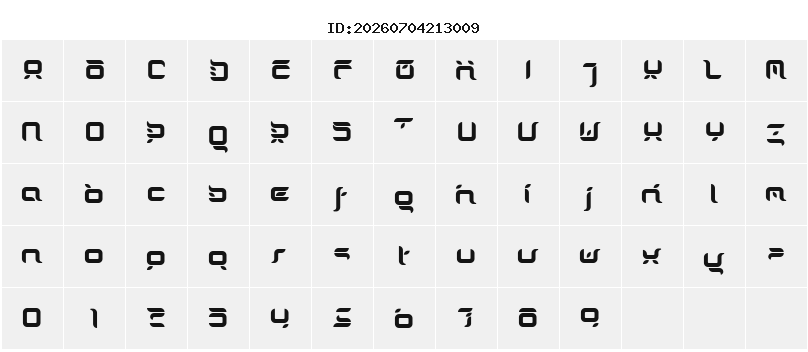
About DorisOrange.ttf
DorisOrange.ttf is a modern, elegant sans-serif font designed for ultimate readability and visual harmony. Perfect for branding, headlines, web design, and print materials.